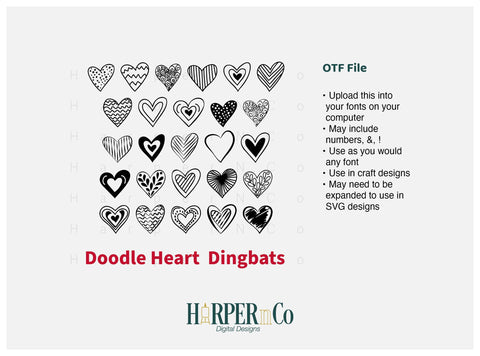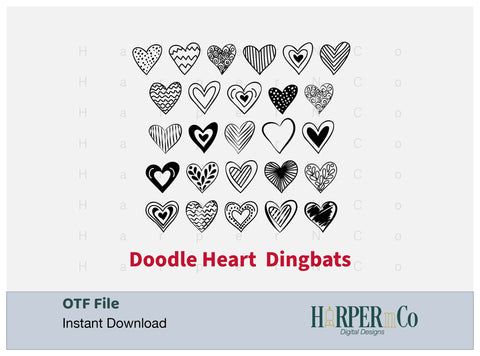
Discover the essence of love and creativity with the Doodle Heart Dingbat Font. This unique collection offers a captivating array of 26 hand-drawn hearts, each embodying a charming doodle-style aesthetic. Whether you’re planning to design something extraordinary for Valentine’s Day or simply wish to infuse an everyday project with a touch of heart-themed artistic flair, this OTF file font brings love to life in every design.